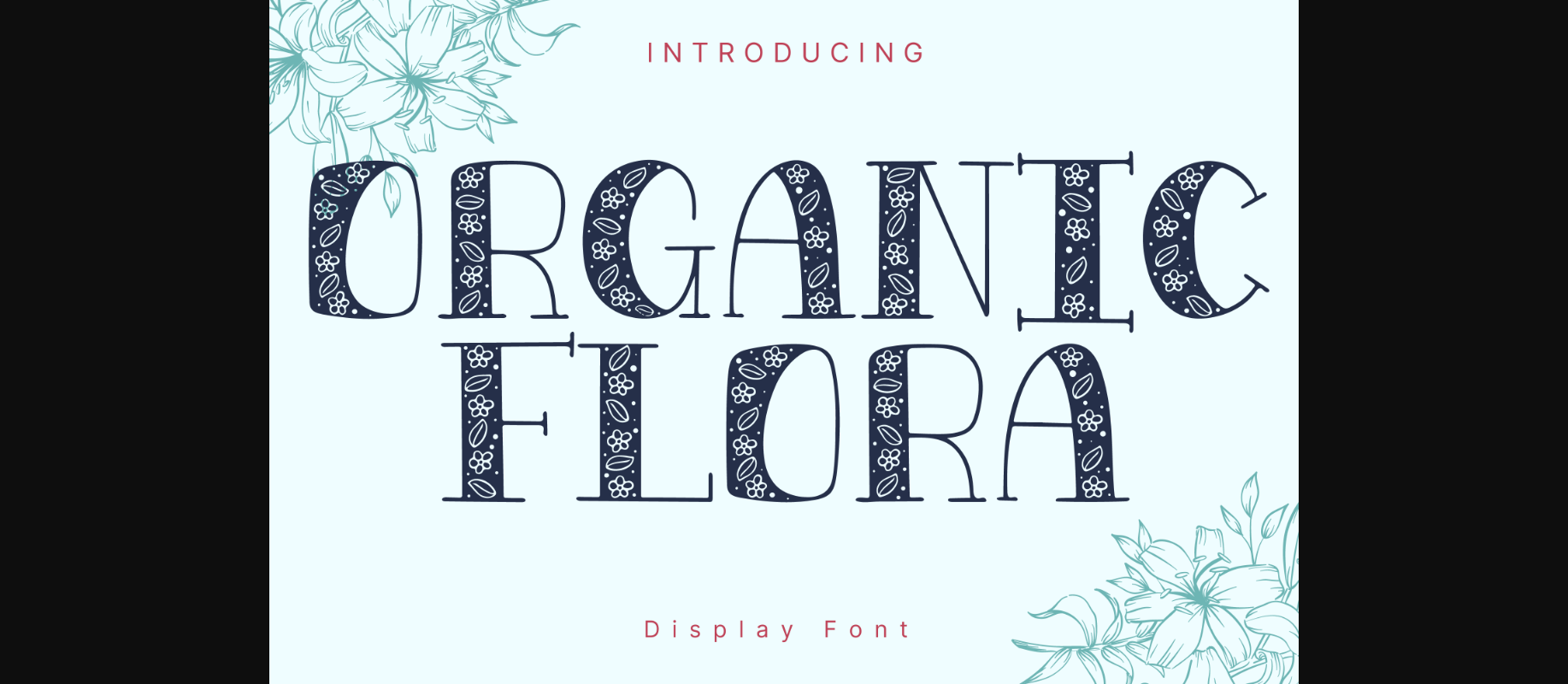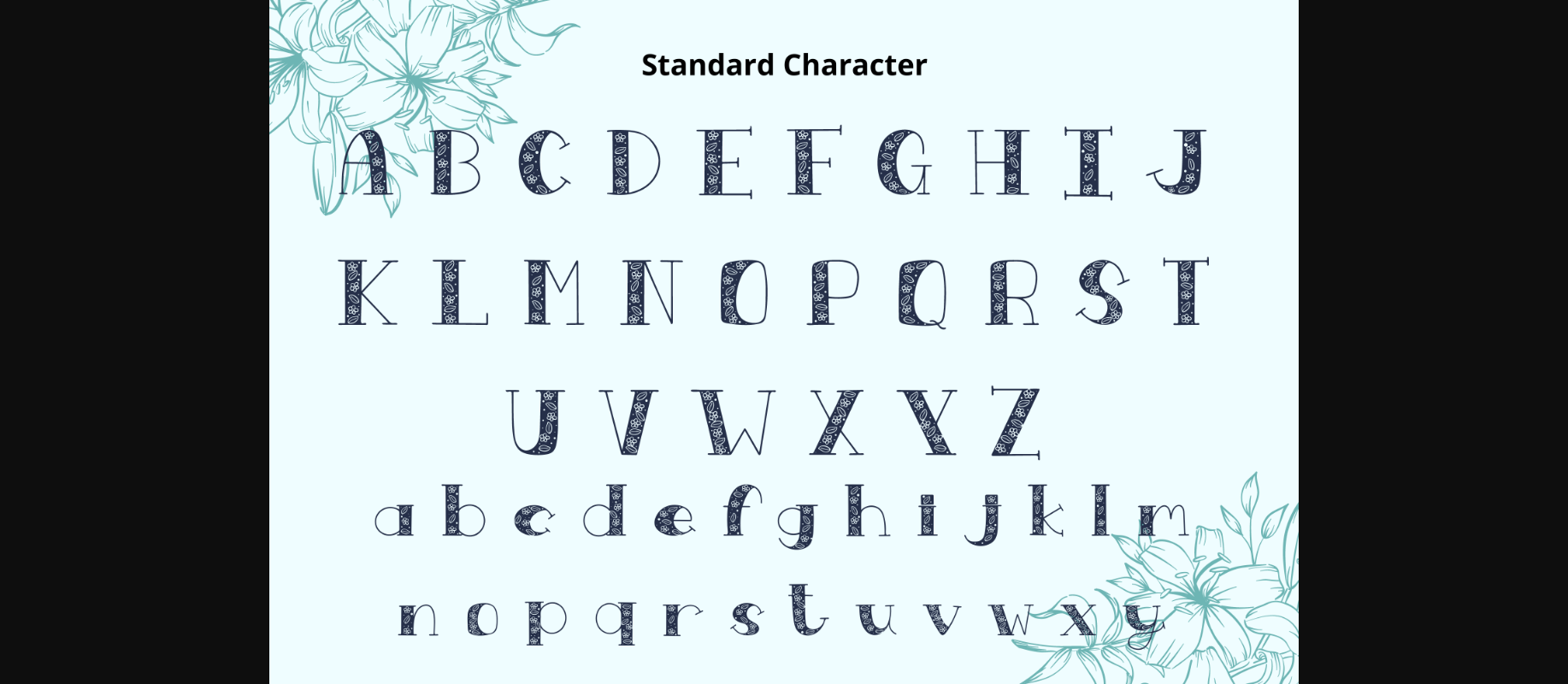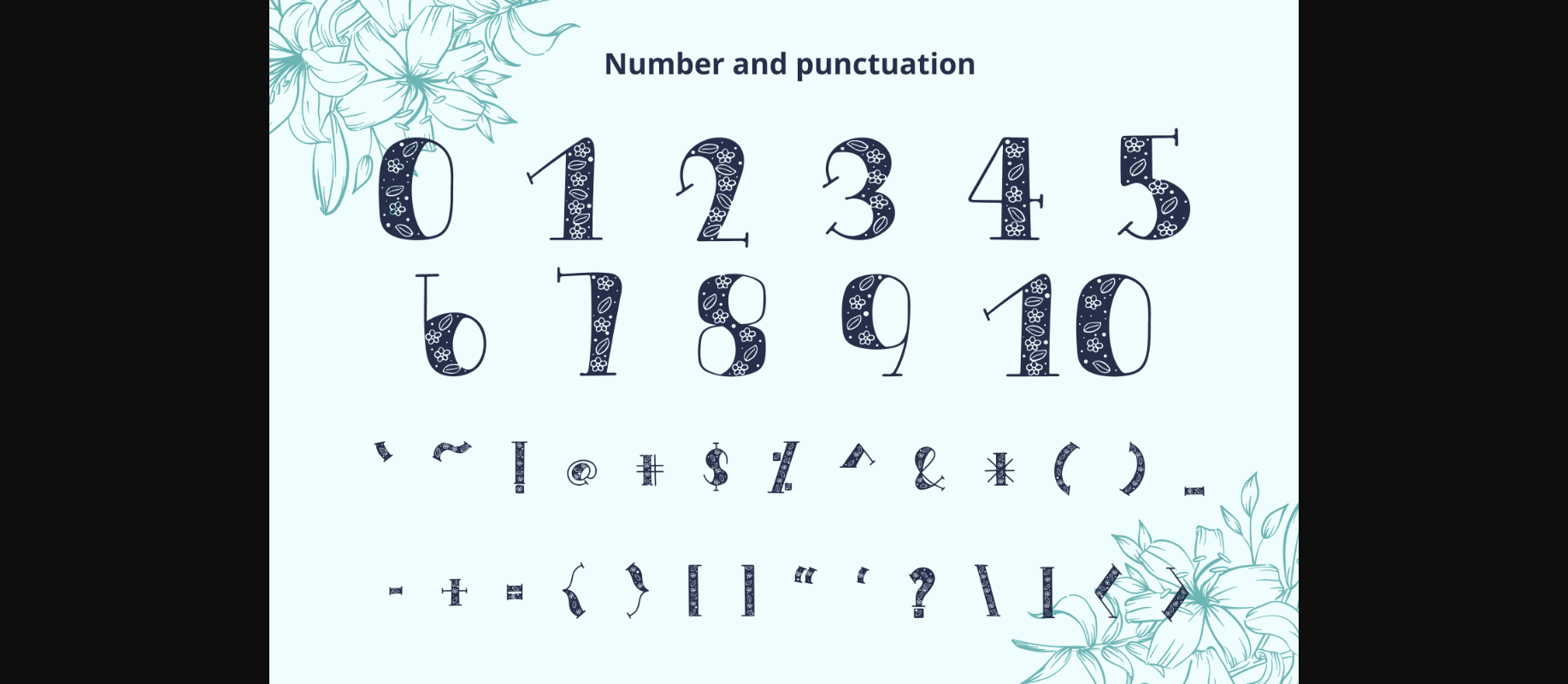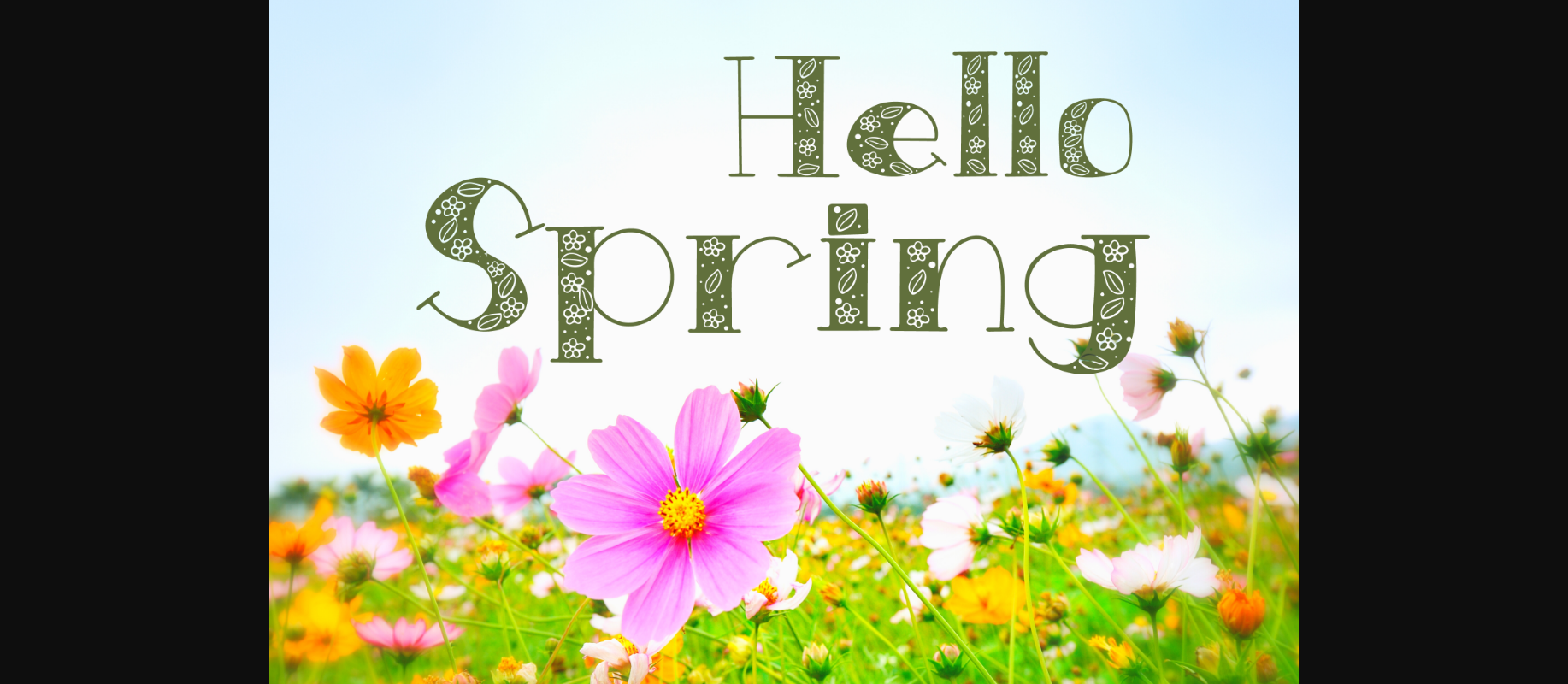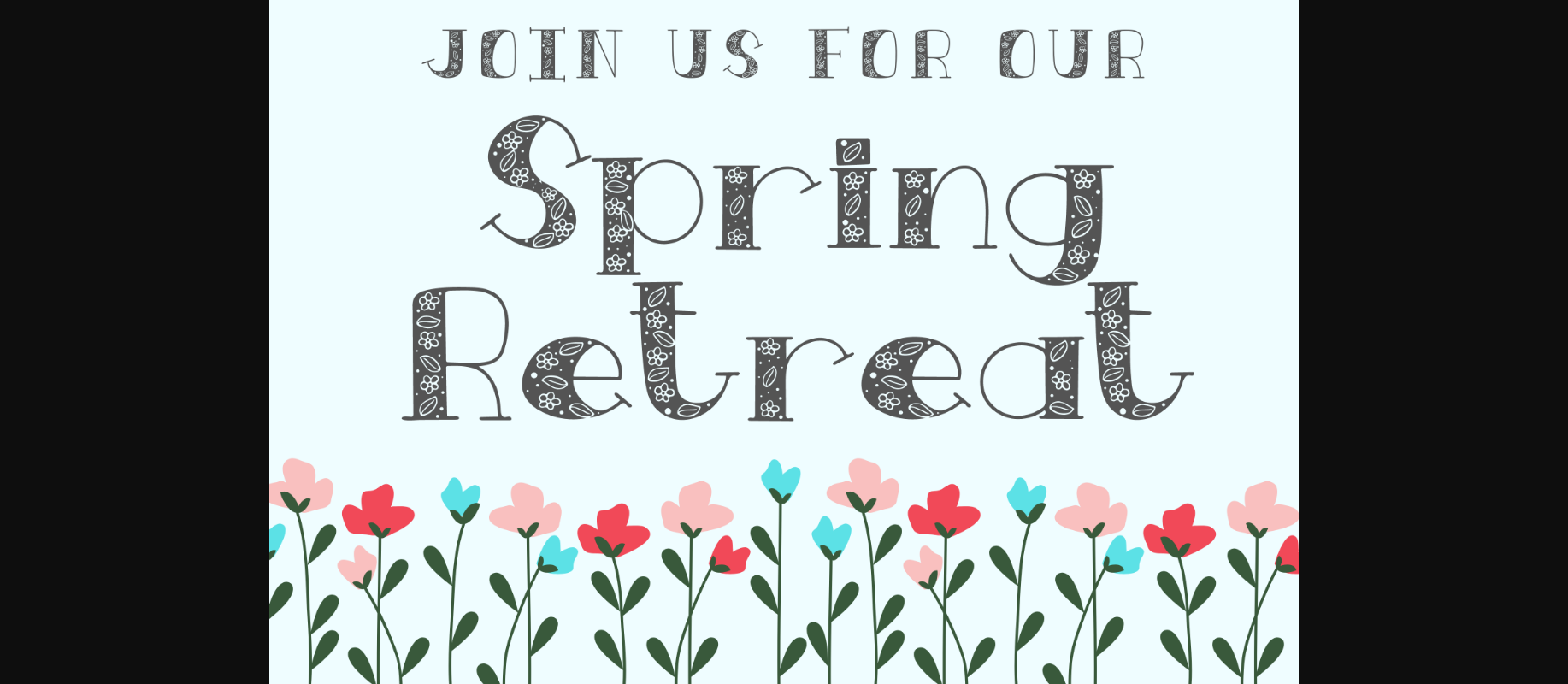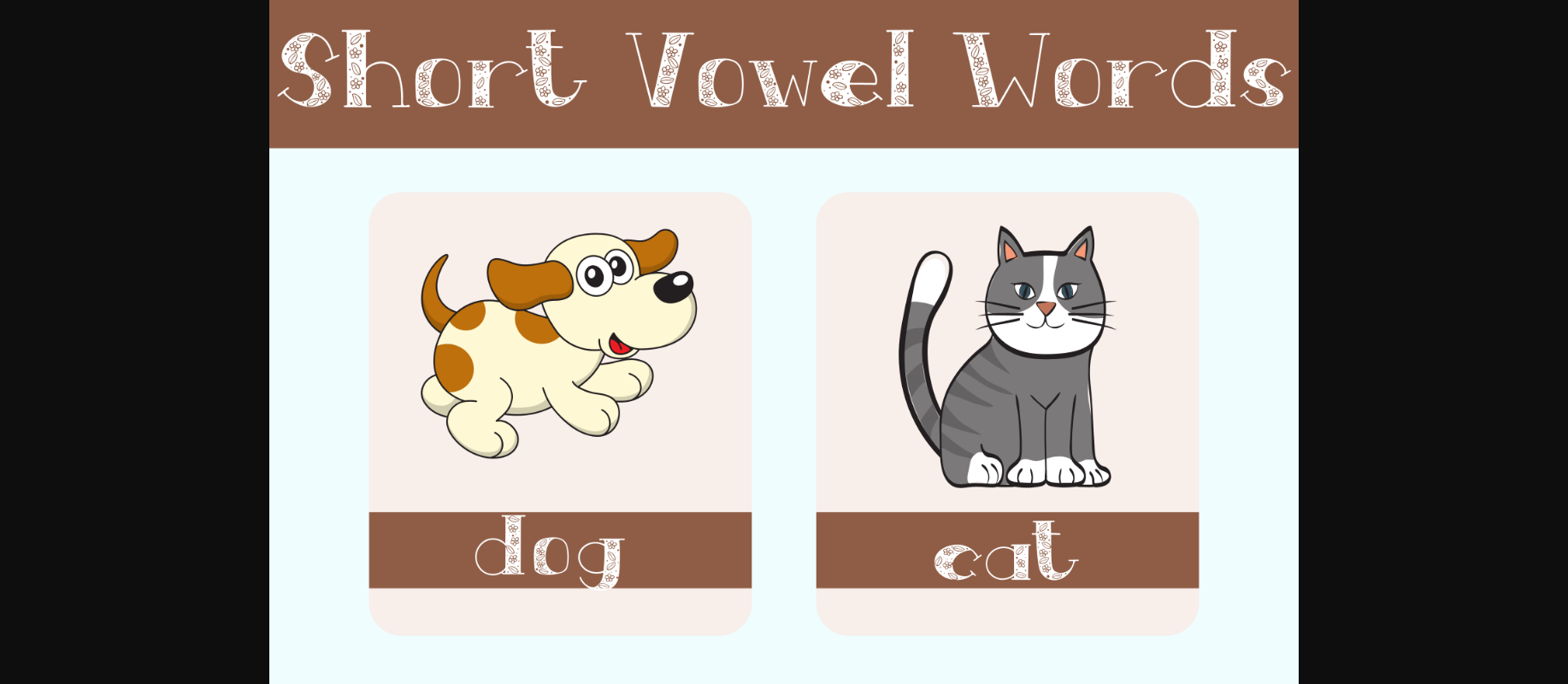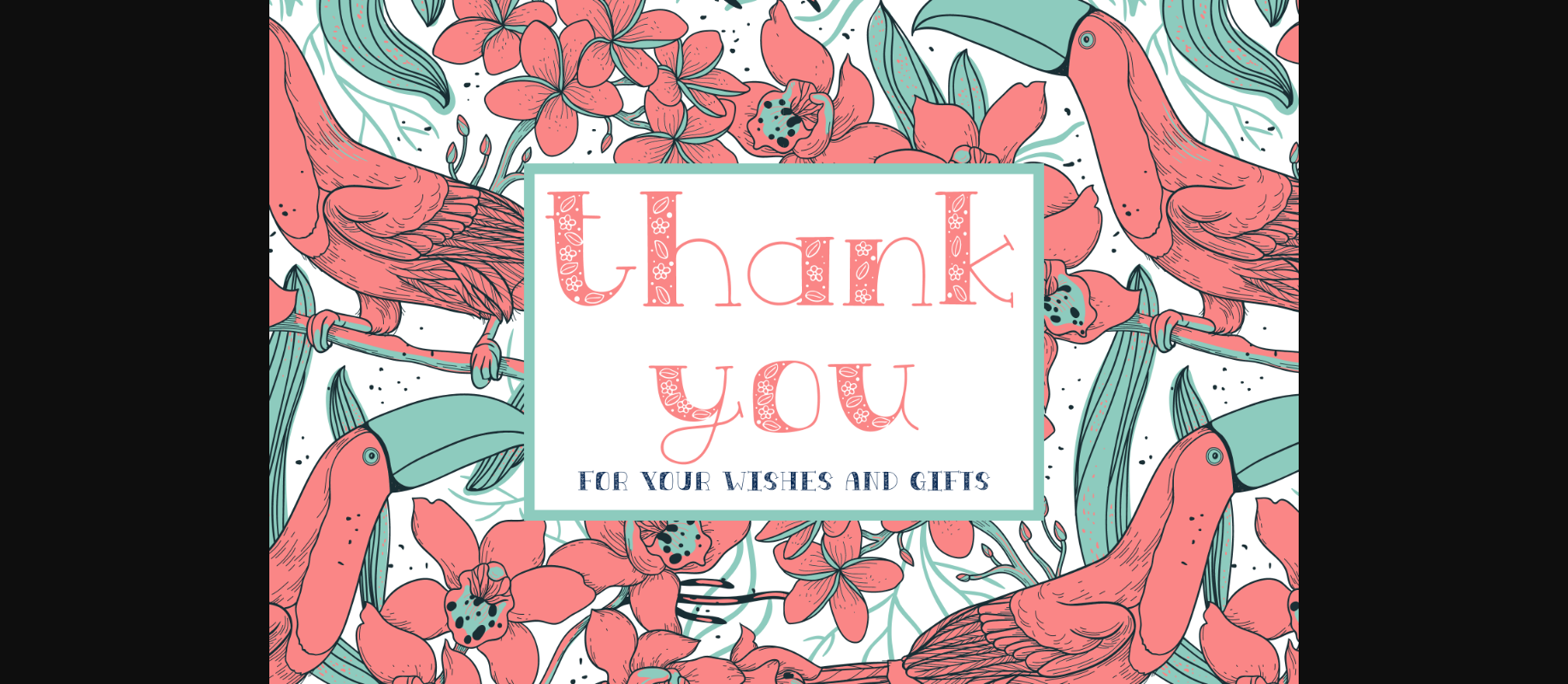
Organic Flora Font
About Organic Flora Font
Organic Flora is a whimsical and adorable decorative font. It can easily be matched to an incredibly large set of projects, so add it to your creative ideas and notice how it makes them stand out!